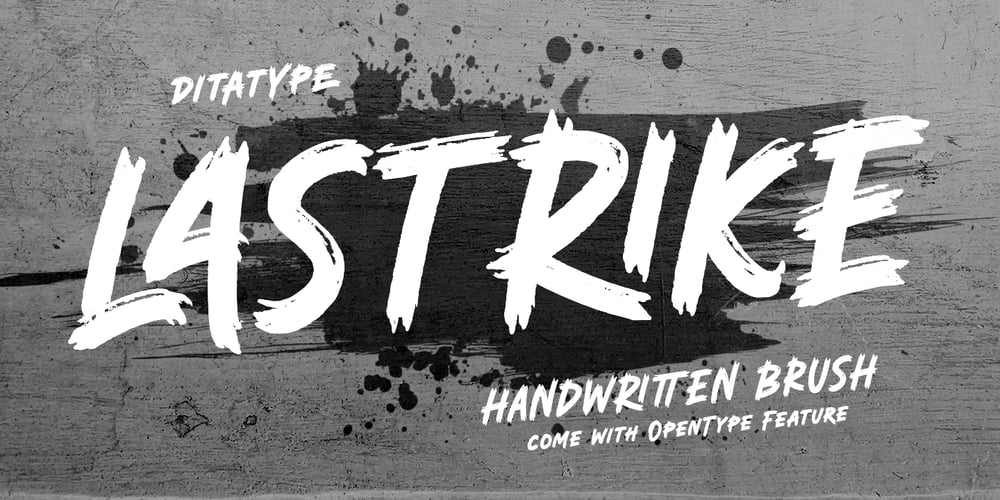
Lastrike Font Family was designed by Donis Miftahudin and published by Ditatype. Lastrike contains 1 styles and family package options. Lastrike is a bold script font with a brush style that exudes urban vibes. Designed with powerful strokes, this font brings energy and attitude to your designs. Both the uppercase and lowercase letters share the same structure, with only their size setting them apart, making it versatile for various text layouts. In addition, enjoy the features here.Features: Alternates Ligatures Multilingual Supports PUA Encoded Numerals and Punctuations Lastrike fits in headlines, logos, posters, branding materials, packaging, print media, editorial layouts, and many more designs. Find out more ways to use this font by taking a look at the font preview.Thanks for purchasing our fonts. Hopefully, you have a great time using our font. Feel free to contact us anytime for further information or when you have trouble with the font. Thanks a lot and happy designing.